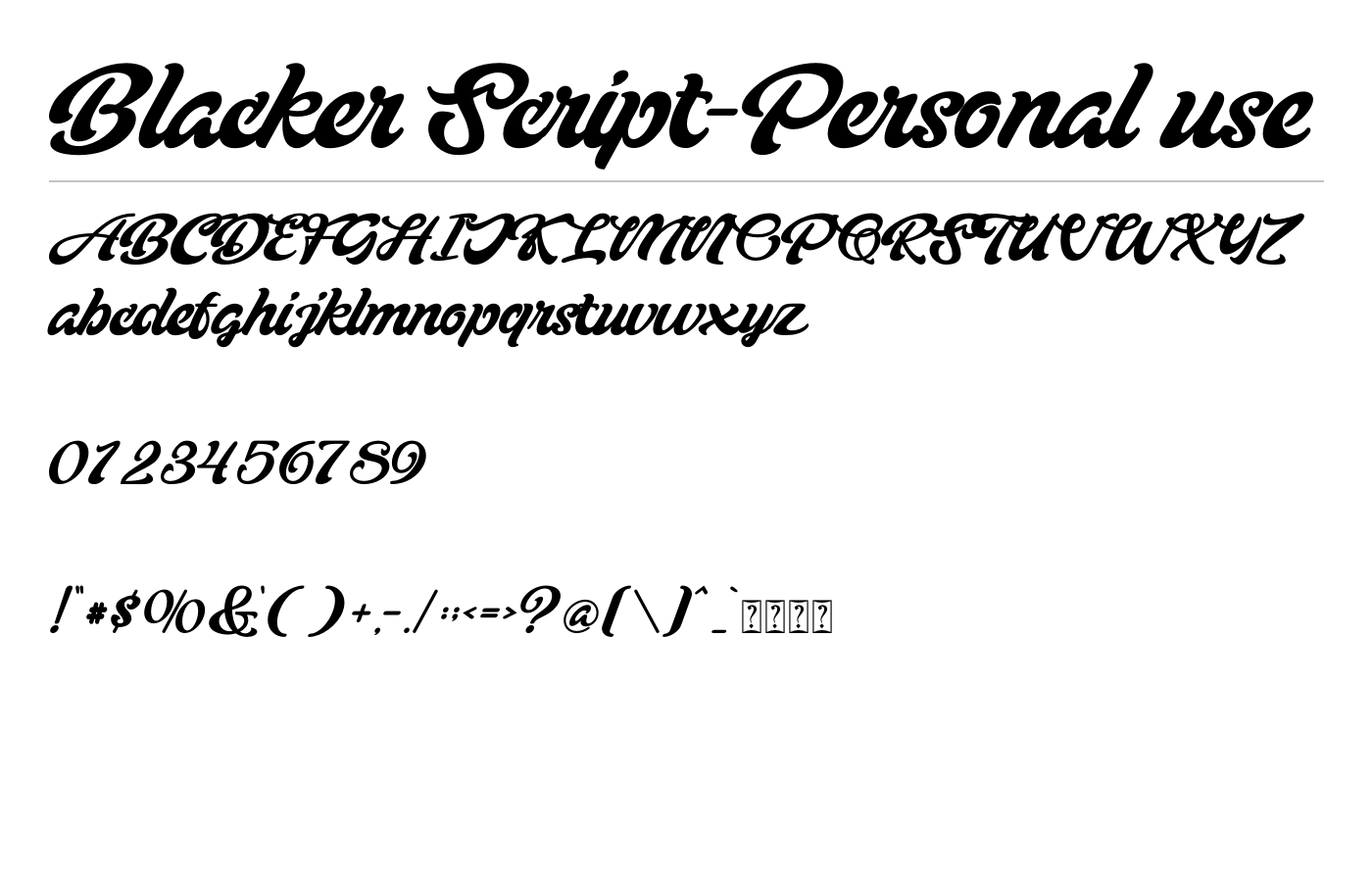
Blacker Script-Personal use is a bold, elegant script font with smooth, flowing strokes that give it a vintage yet lively feel. Its thick weight and connected letterforms make it perfect for eye-catching headlines, logos, and branding that seek a classic, sophisticated touch. This font works well where personality and style are needed to create a memorable impression, especially in fashion, packaging, and invitations.
Blacker Script-Personal use Font
About Blacker Script-Personal use Font
| Designer | Letterara |